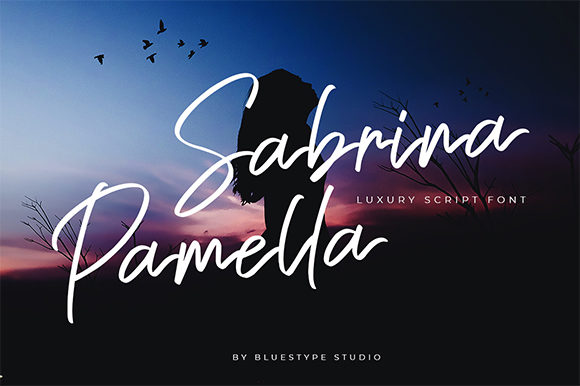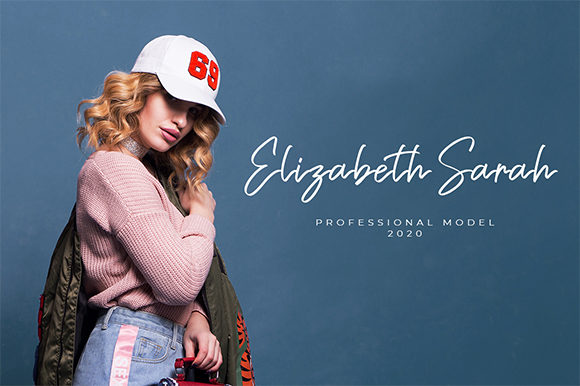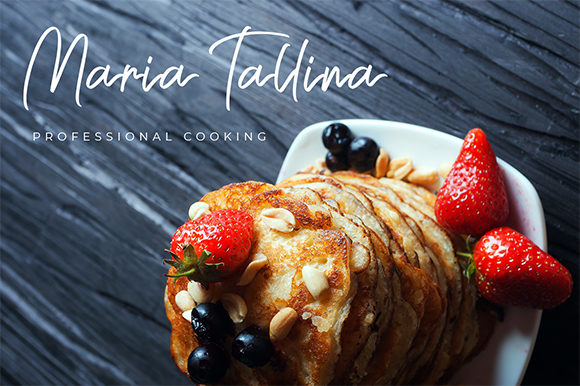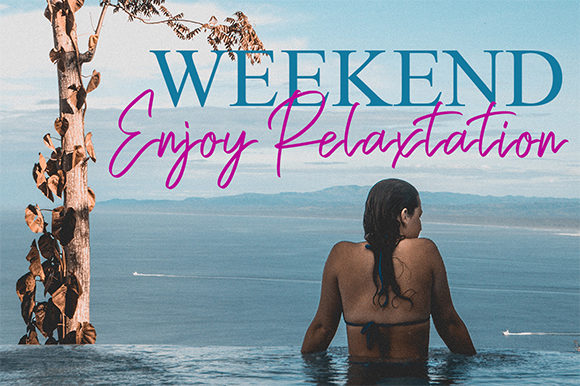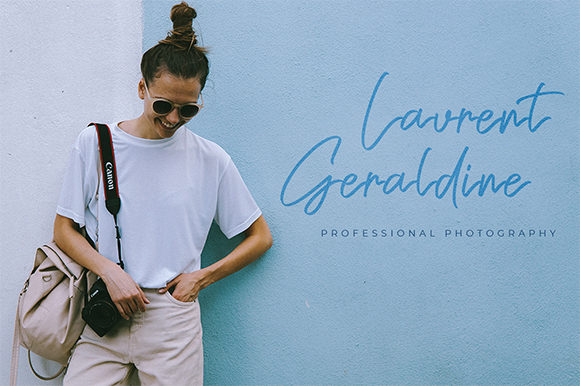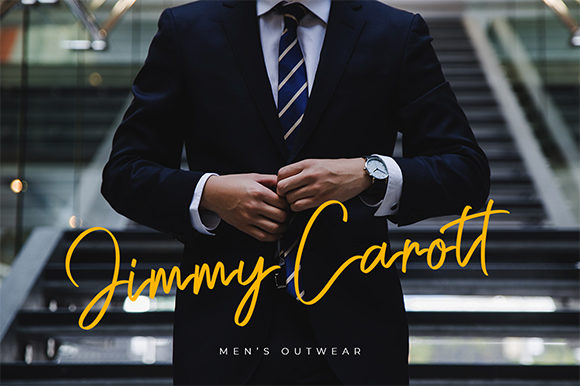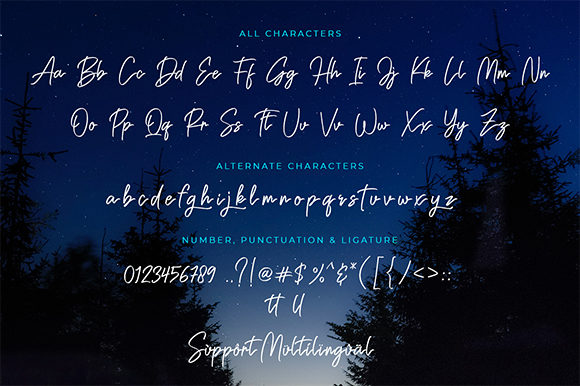
Sabrina Pamella Font
About Sabrina Pamella Font
Sabrina Pamella is a fancy and elegant script font that’s great for a multitude of design projects, be it posters, logos, body text, greeting cards or much more!